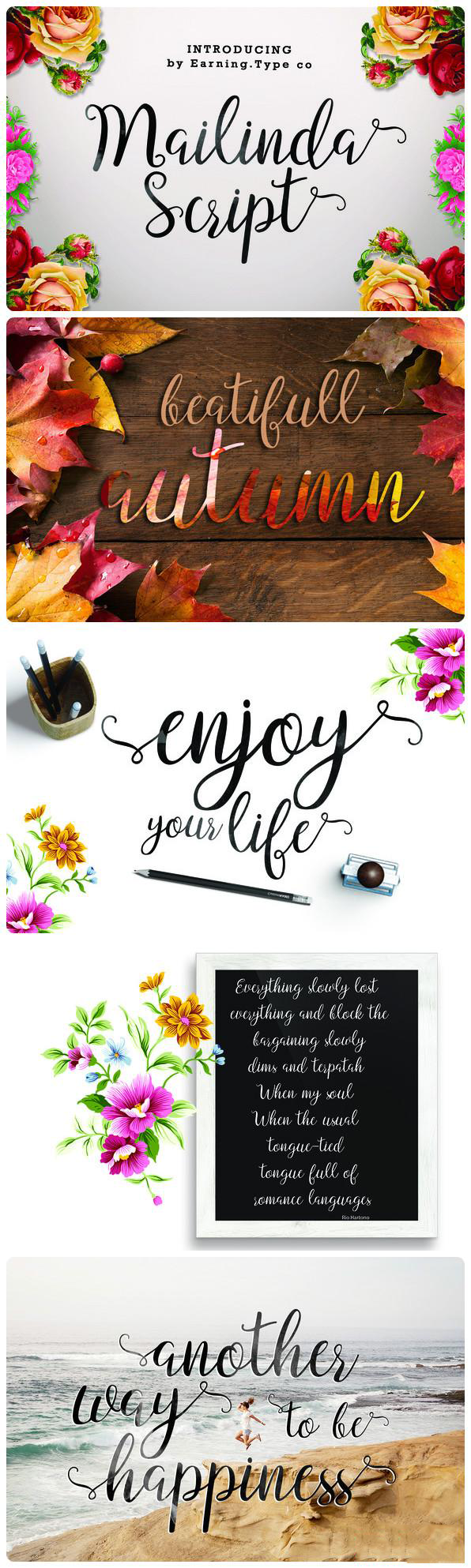
Mailinda Script Font
Mailinda Script is a new varieties of handlettered script font, allowing you to completely make-each word look stylish! With smooth style and petite, elegant with a long thin connections that make it look luxurious and original.